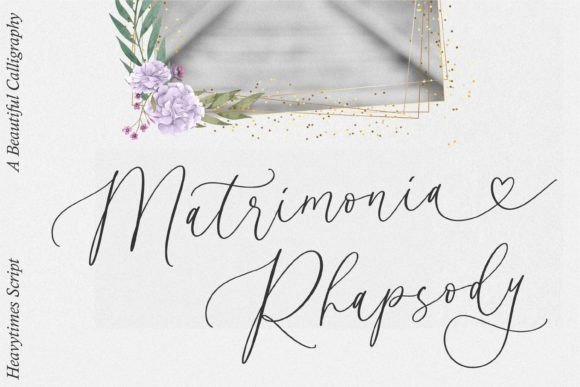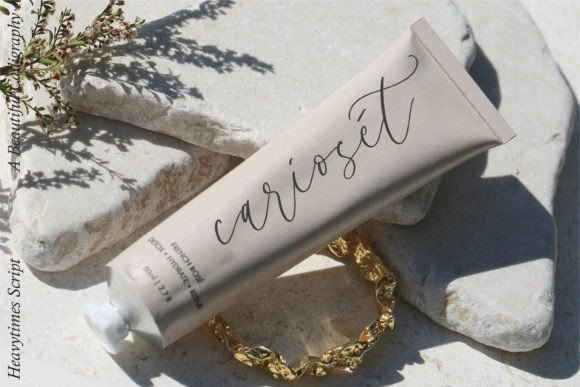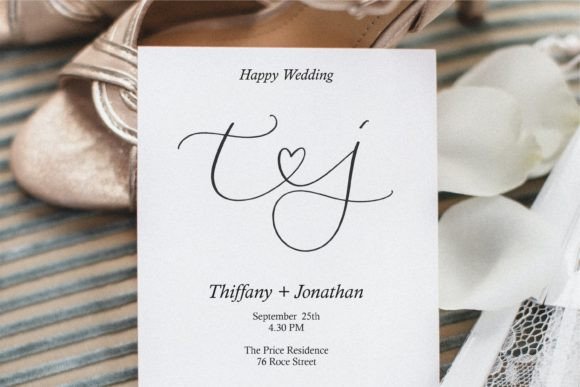
Introduction to Heavytimes Font
Heavytimes is a heart & tail beautiful calligraphy font, featuring a stunning handmade style with elegant tails and swashes.
The flowing tails and swashes add an extra layer of sophistication and elegance, creating a beautiful and harmonious composition Whether you’re designing wedding invitations, branding, and other romantic project, this font is perfect for you.
Heavytimes Font offers exceptional quality and versatility, making it a valuable addition to your design toolkit. Whether you’re creating for personal projects or commercial use, Heavytimes Font delivers professional results.